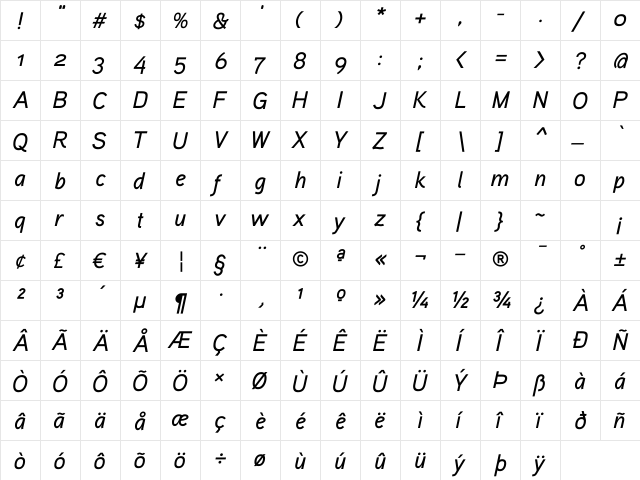
Aaux ProMedium Italic OSF Regular Font Preview
Aaux ProMedium Italic OSF Regular
Aaux ProMedium Italic OSF Regular Font Details
Design Context for Aaux ProMedium Italic OSF Typeface
Aaux ProMedium Italic OSF offers clean, dependable letterforms without strong stylistic allegiance, making it a practical choice for designers who need flexibility. The dynamic lean of this cut emphasises speed and emphasis in any layout.